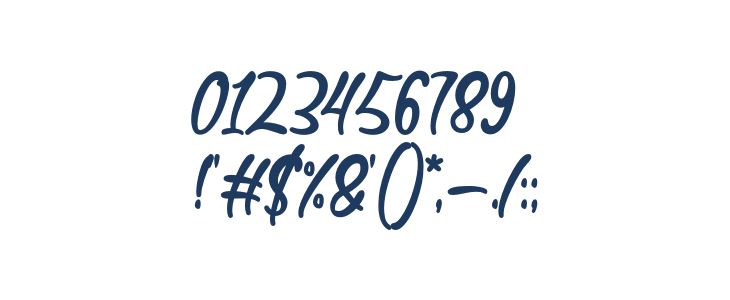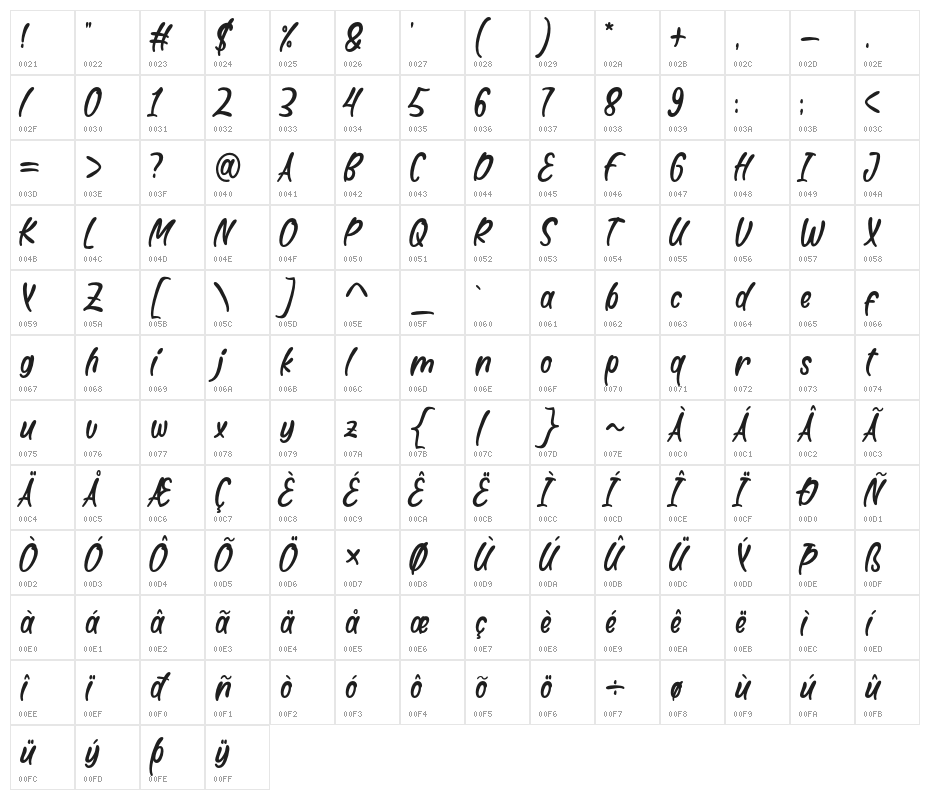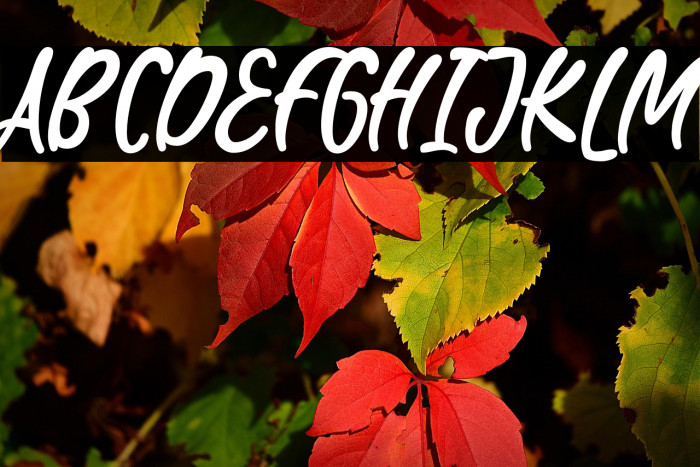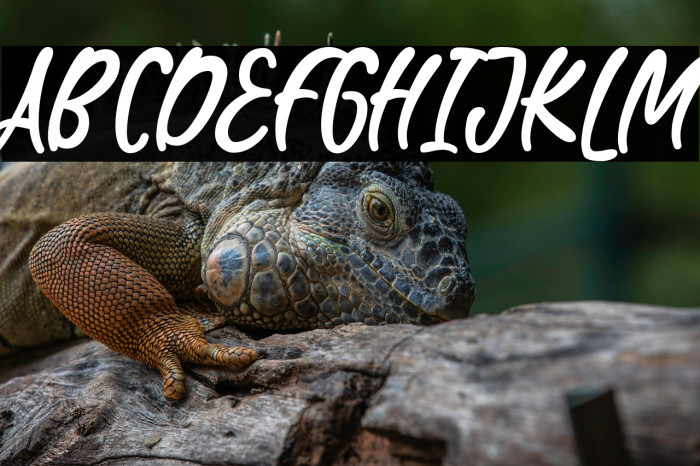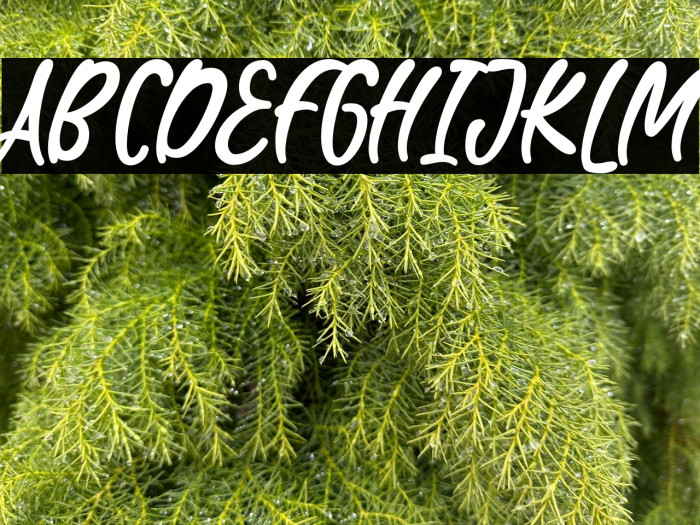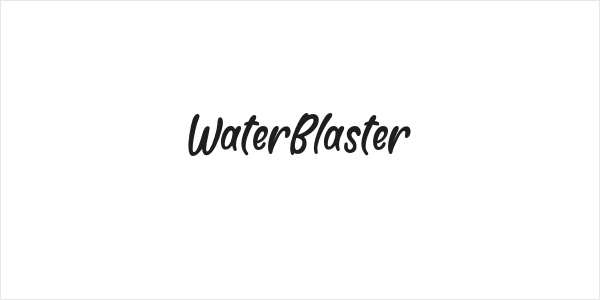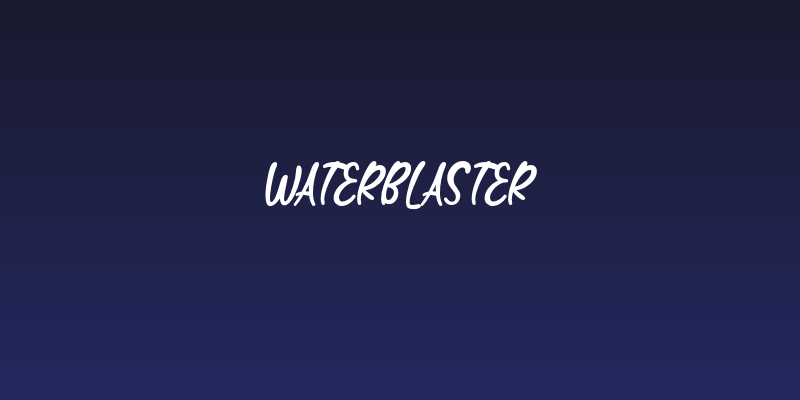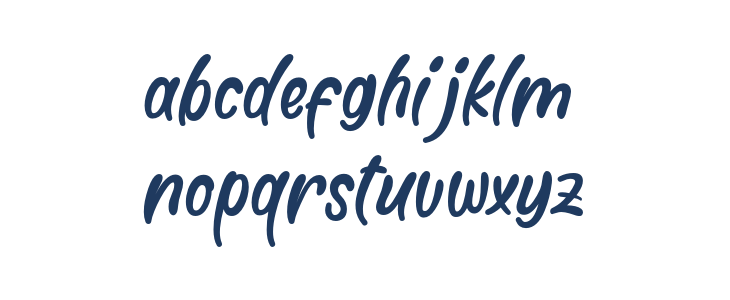
WaterBlaster Font
WaterBlaster Description
This font features a bold, energetic script style with a playful and dynamic appearance. The letters are interconnected, creating a sense of flow and movement. The strokes are thick and consistent, giving it a strong presence. The uppercase letters are slightly larger than the lowercase, maintaining a cohesive look. Numbers and special characters are designed to match the lively style, making it suitable for eye-catching designs. The overall impression is casual yet impactful, perfect for projects that require a touch of personality and flair.